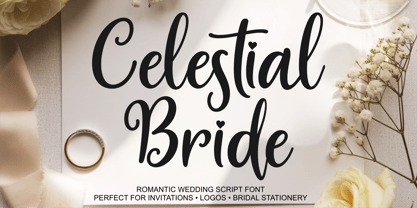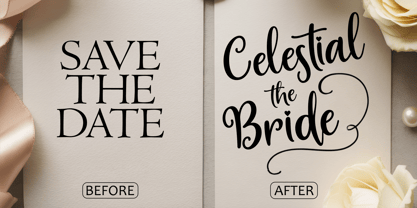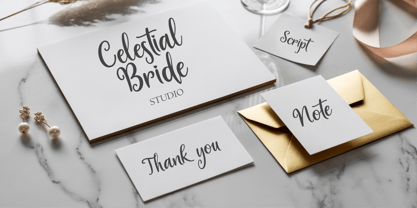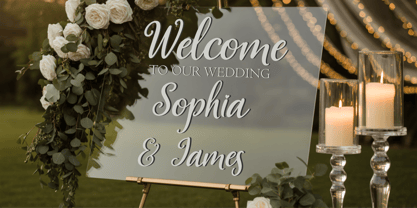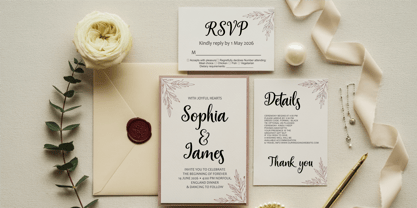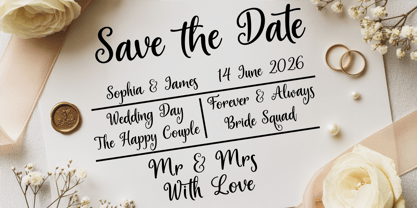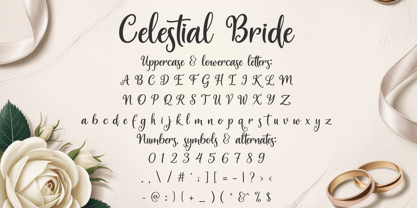
Celestial Bride
by Tonis Art Studio
The Celestial Bride Font Family was designed by Tony Balios and published by Tonis Art Studio. Celestial Bride contains 1 styles. More about this family
Celestial Bride is a romantic wedding script font created for love stories that deserve to feel timeless. Designed with graceful movement, elegant curves, and a soft handwritten charm, this font brings instant emotion to every word—perfect for brides, wedding planners, and creatives who want their designs to feel luxurious, personal, and unforgettable. Whether you're creating wedding invitations, save the dates, vow books, table numbers, place cards, signage, menus, bridal shower decor, or a modern wedding logo, Celestial Bride adds that dreamy “forever” feeling without trying too hard. It’s the kind of font that makes your design look expensive, polished, and ready for print—ideal for minimalist weddings, romantic themes, luxury stationery, and elegant branding. This font is also perfect for small business branding: boutique logos, photography watermarks, beauty salons, wedding vendors, packaging, and social media quotes that need a soft luxury touch. ✨ Best uses: • Wedding invitations & stationery • Save the date cards & RSVPs • Bridal shower & engagement party designs • Wedding signs, menus, seating charts • Monograms, logos, branding & watermarks • Cricut/Silhouette projects & printable decor Celestial Bride was made to feel like a whisper, a promise, and a forever—because your wedding designs should feel just as special as the moment.